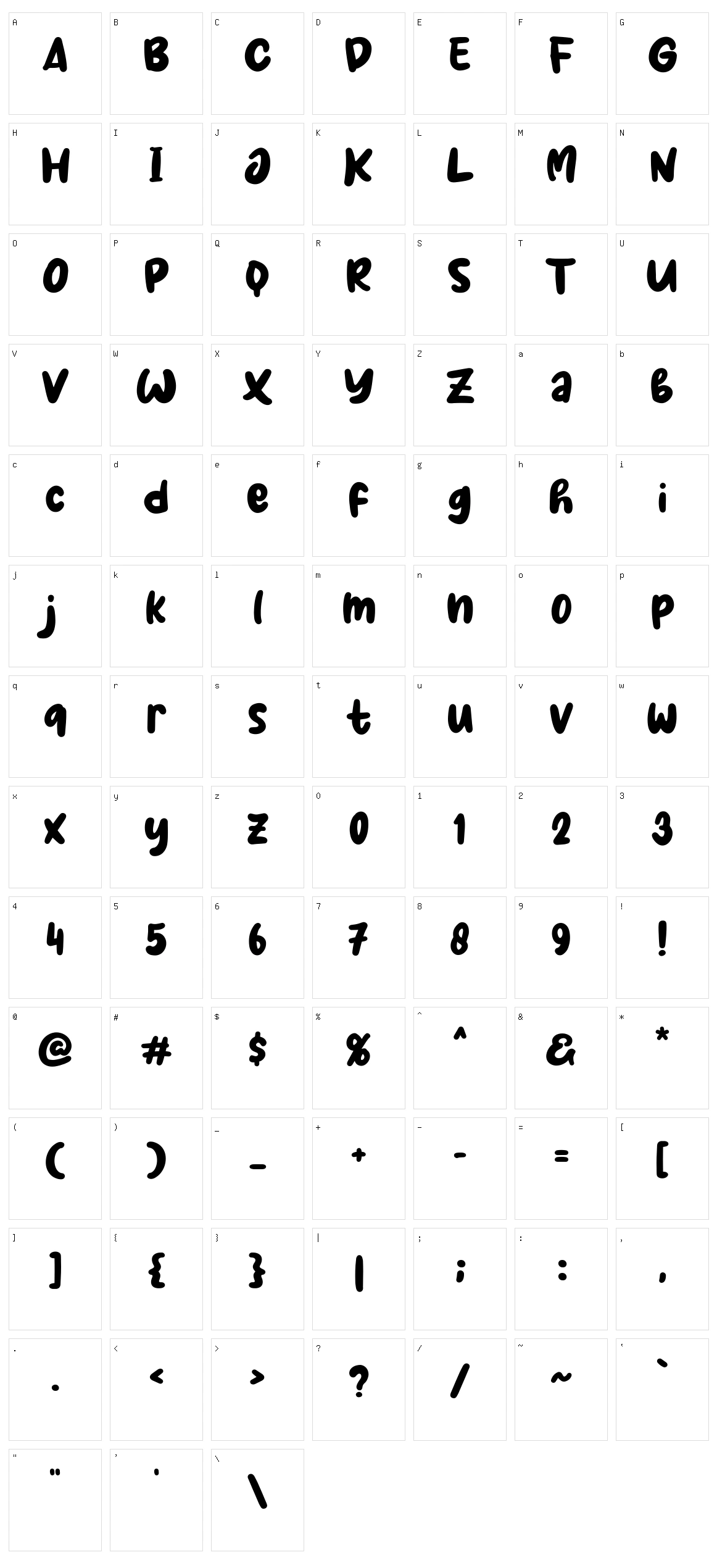
The free font Milky Coffee is carefully designed by Khurasan, showcasing a thoughtful balance of creativity and usability and falls under the Cartoon font style. When you download the ZIP file, it contains only 311.42 KB of font files, making it lightweight and quick to download. Please review the license details below to understand permitted usage and distribution rights. If license information is not available, we recommend using this font for personal projects only or contacting the author directly for commercial usage permissions.